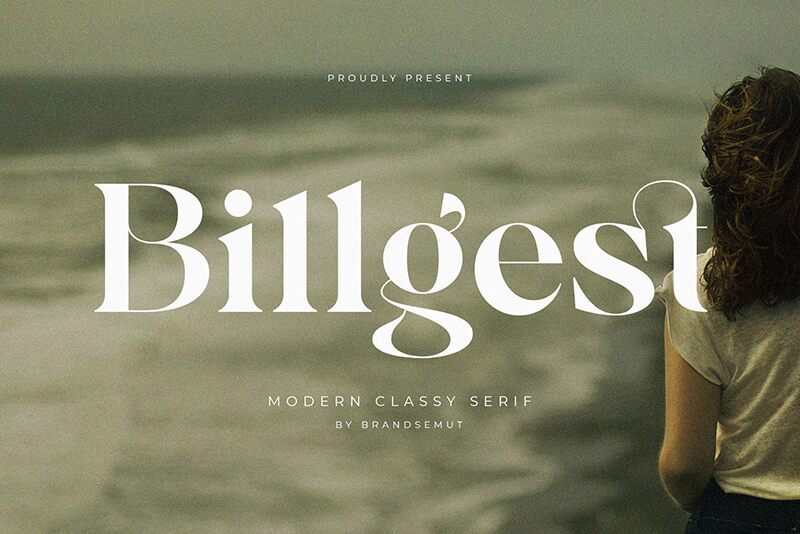
Billgest, the modern classy serif font designed by Brand Semut, adds a touch of sophistication to any project. The semi-bold font weight provides a boldness that demands attention, while the sleek design exudes elegance. Its versatility makes it suitable for a range of projects, from high-end fashion magazines to luxury branding campaigns. Use Billgest to elevate your designs and captivate your audience with its timeless aesthetic.